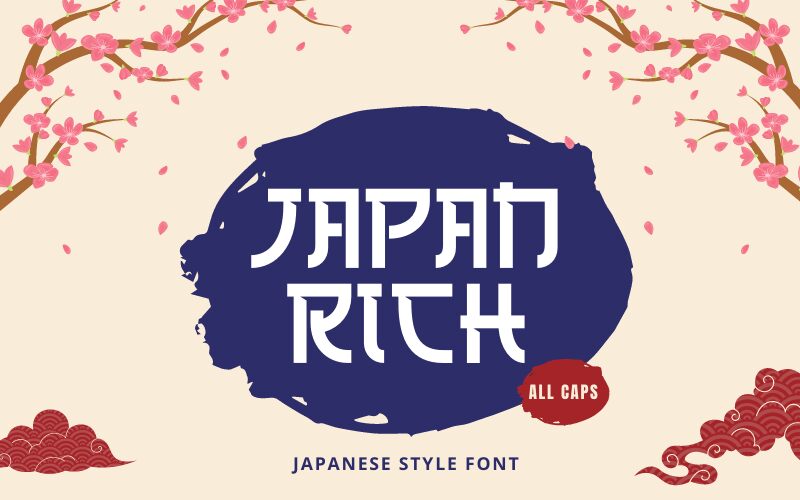
Japan Rich, a captivating font created by Nirmana Visual, beautifully captures the essence of faux Japanese design. With its intricate strokes and delicate curves, this font transports you to the enchanting world of traditional East Asian art. Inspired by the Kanji script, Japan Rich adds an elegant touch to any project it graces.
Its versatility makes it suitable for a wide range of applications – from branding and packaging designs that seek to evoke a sense of authenticity and sophistication, to editorial layouts that aim to captivate readers with an air of mystique.
Let Japan Rich elevate your creations with its timeless charm.